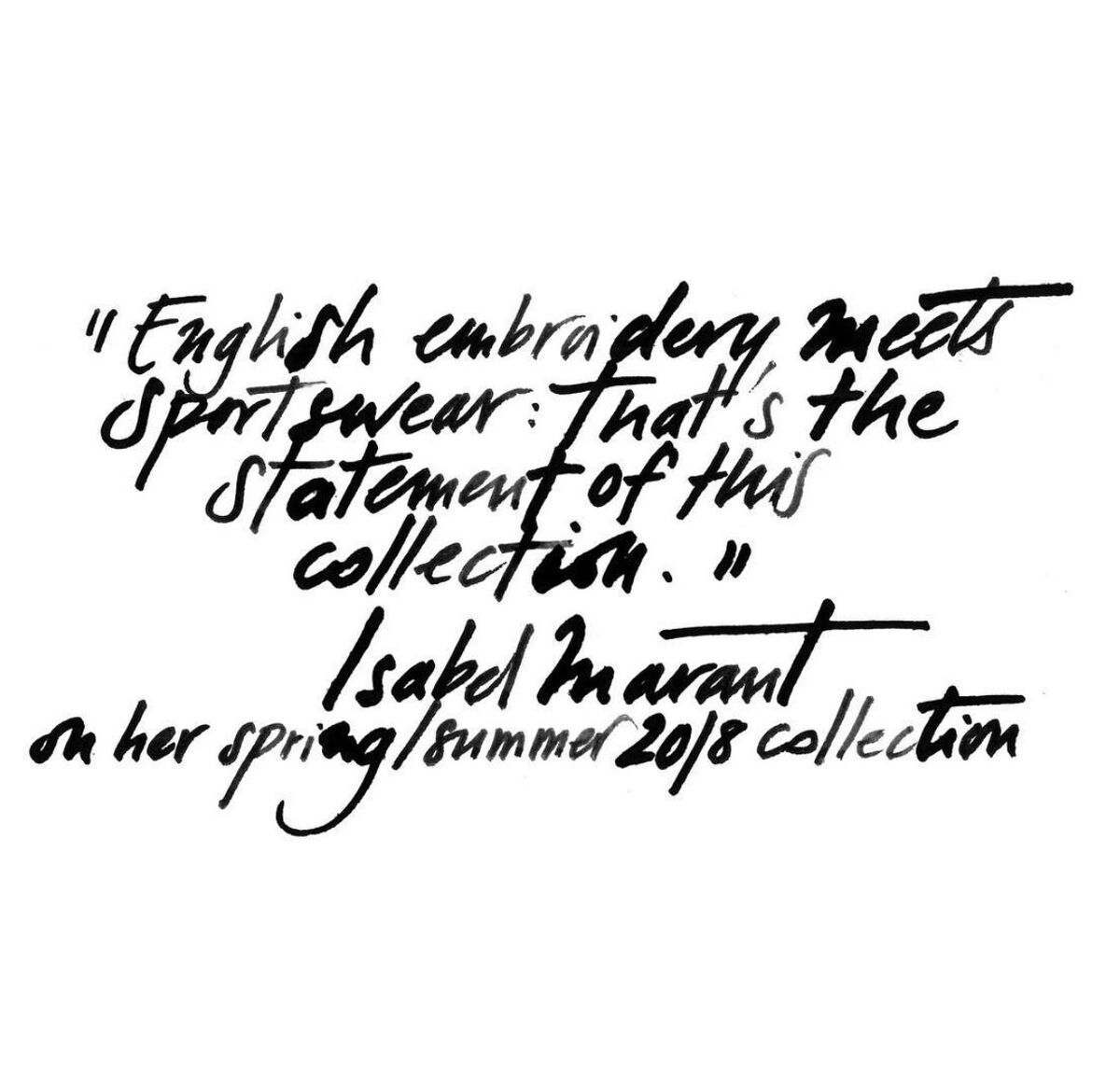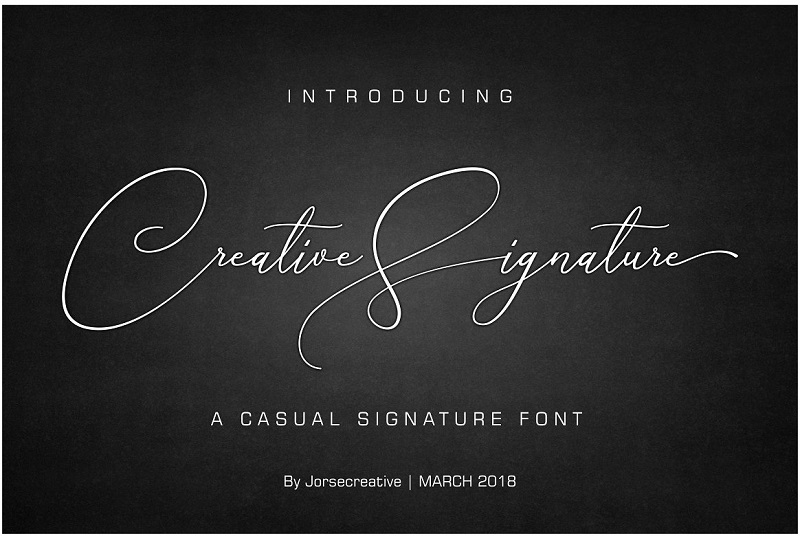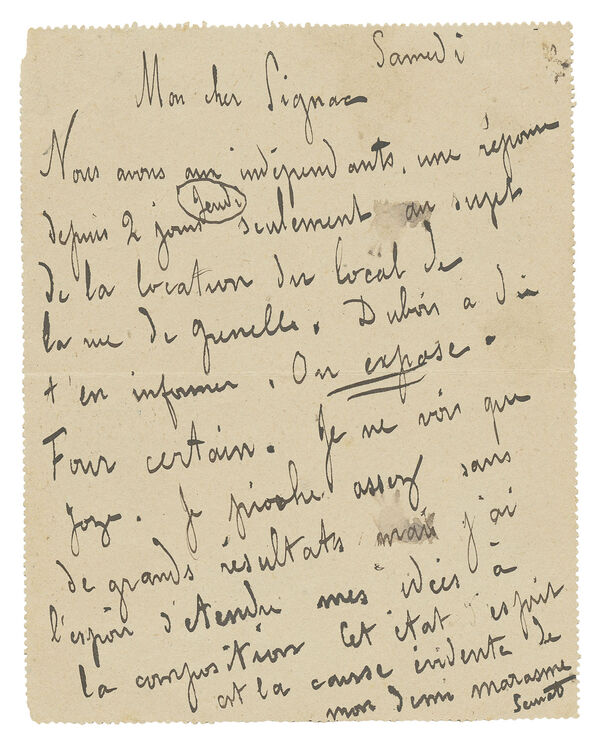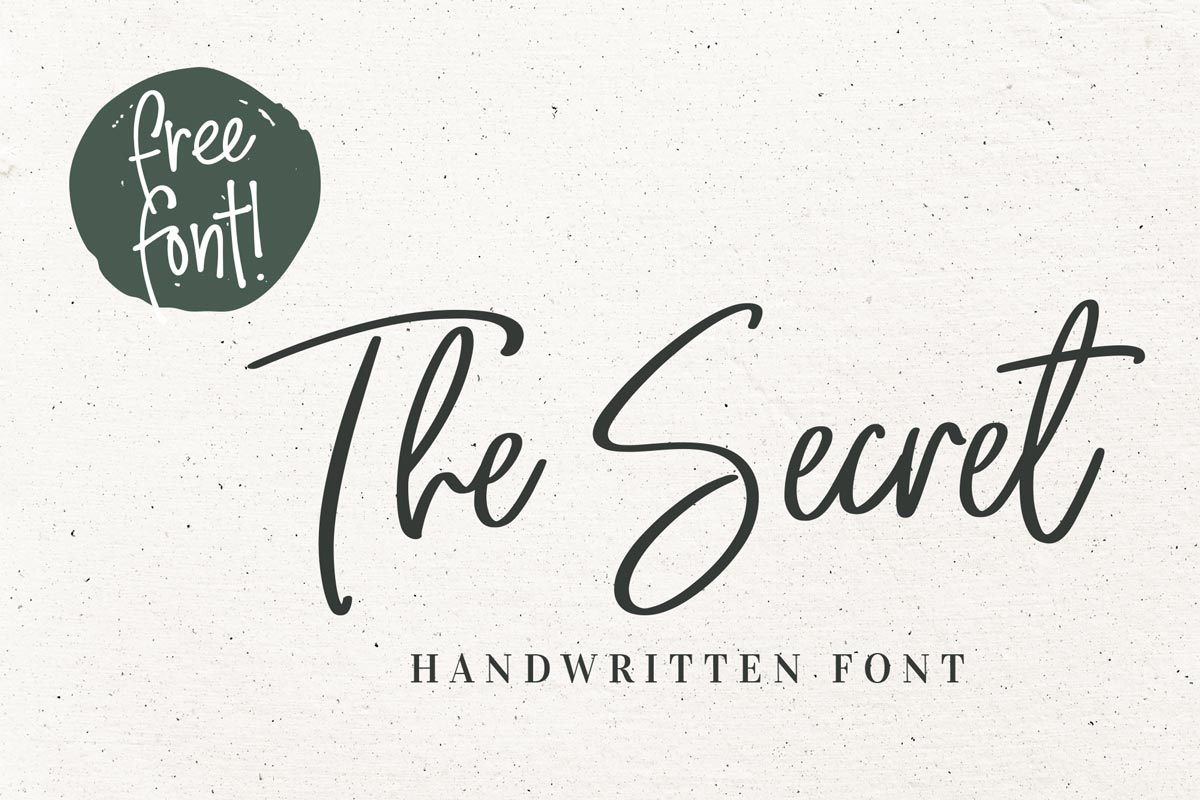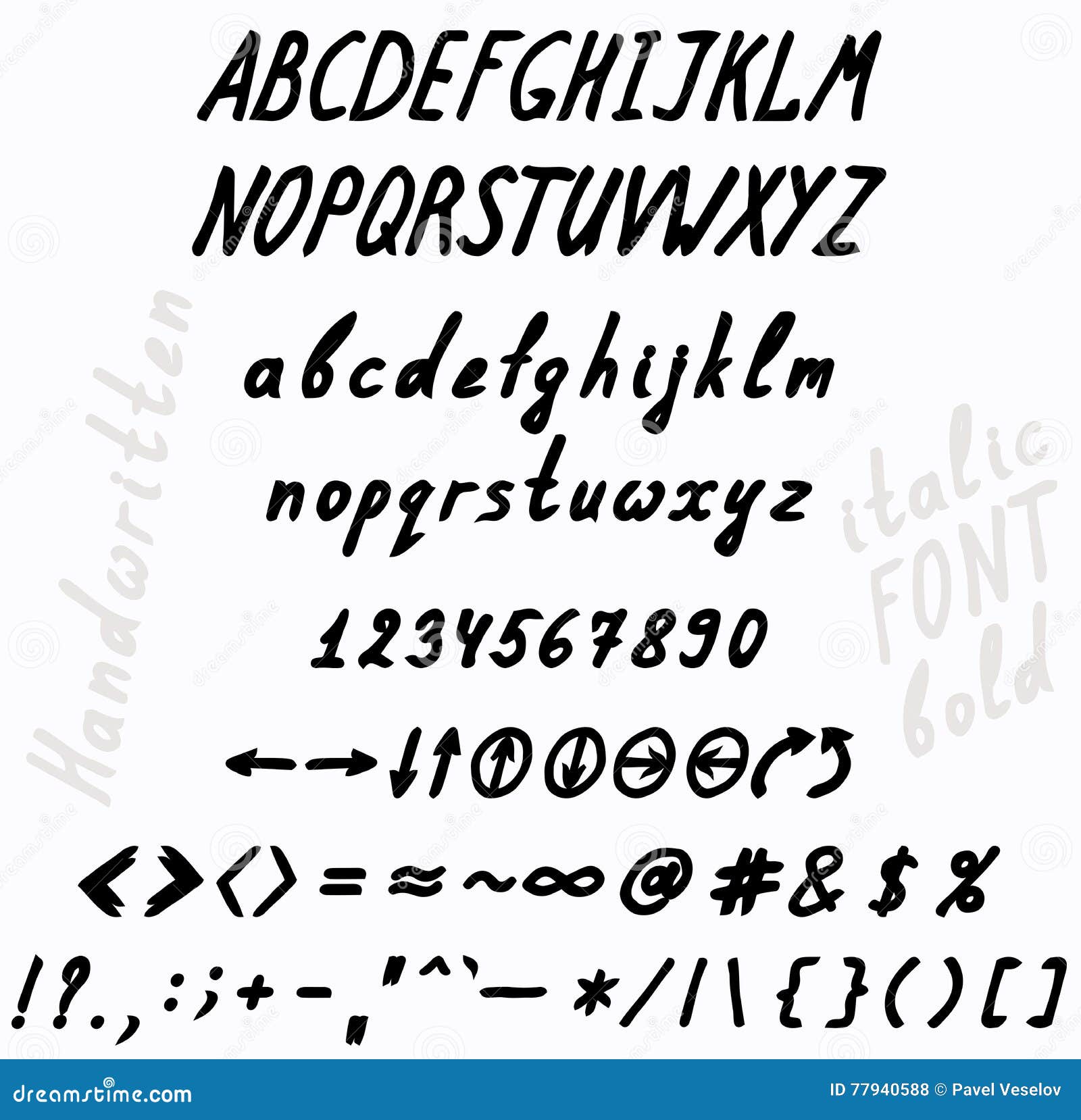
Cursive K Circle by wasih. This is a digita. Cursive fonts simply emulate cursive handwriting in which letters are usually connected in a slanted and flowing manner.
In the Arabic Latin and Cyrillic alphabets many or all letters in a word are connected sometimes making a word one single complex stroke. Dec 19 2019 - Explore Teresa Benefields board Calligraphy followed by 382 people on Pinterest. Cursive Font Handwriting Text Generator.
Every font is free to download. Calligraphy is an ancient writing technique using flat edged pens to create artistic lettering using thick and thin lines depending on the direction of the stroke. No doubt this is unique and expressive premium writing.
Cursive fonts mimic the style of human penmanship where the letters flow together. However for different languages cursive writing can mean differently for example for eastern Asian languages like Chinese cursive writing focuses more on the formation and connectedness of strokes within an individual character while for Latin Cyrillic and Arabic languages cursive writing. Click to find the best 76 free fonts in the Artsy Cursive Calligraphy style.
See more ideas about hand lettering fonts creative lettering. Calligraphy is unbelievable beautiful handwriting and the rope for digital moderate production. Chinese Jpn Arabic Mexican Roman Greek Russian Various.
Including initial and terminal letters alternates ligatures and multiple language support. For more artistic styles you will want to look at calligraphy or hand-lettering. Cursive also known as joint writing or running writing or handwriting is any style of penmanship in which the symbols of the language are written in a conjoined andor flowing manner generally for the purpose of making writing faster.
The cursive handwriting style is functional and intended to be used for everyday writing. Cecilia Script features 394 glyphs and 224 alternate characters. Click to find the best 85 free fonts in the Artsy Calligraphy style.